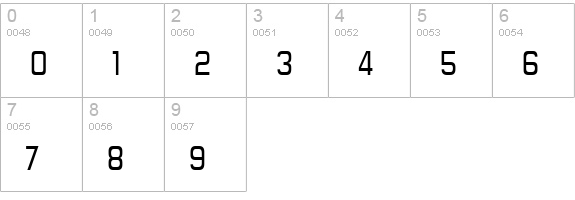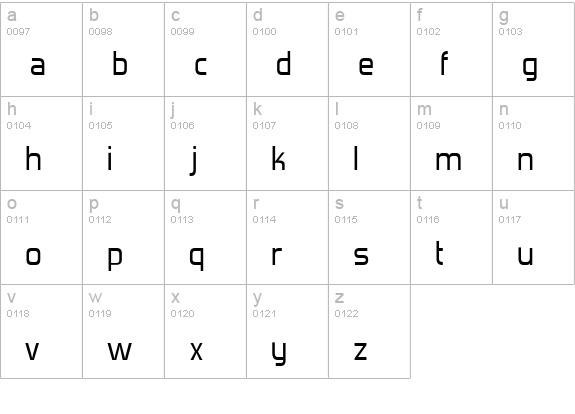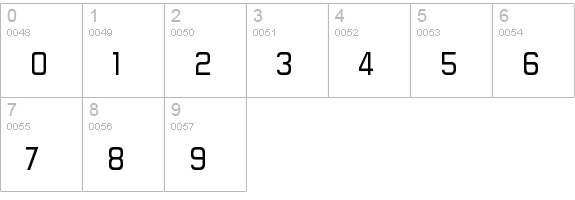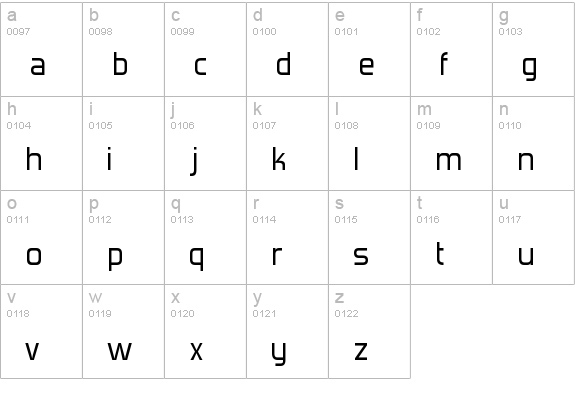
Forgotten Futurist font is a captivating typeface that perfectly blends futuristic elements with a touch of nostalgia, creating a unique and eye-catching design. Its sleek lines and geometric shapes evoke a sense of innovation and creativity, making it an ideal choice for projects that require a modern and forward-thinking aesthetic. This versatile font is suitable for a wide range of design applications, from branding and packaging to digital displays and web design. Whether you're creating a cutting-edge logo or designing a sleek website, Forgotten Futurist font will help your work stand out and make a lasting impact. Best of all, Forgotten Futurist font is available for free download at FontsMarket.com, allowing you to access this stylish typeface without any cost. Don't miss out on the opportunity to enhance your design projects with this exceptional font – download Forgotten Futurist today and take your creations to the next level.